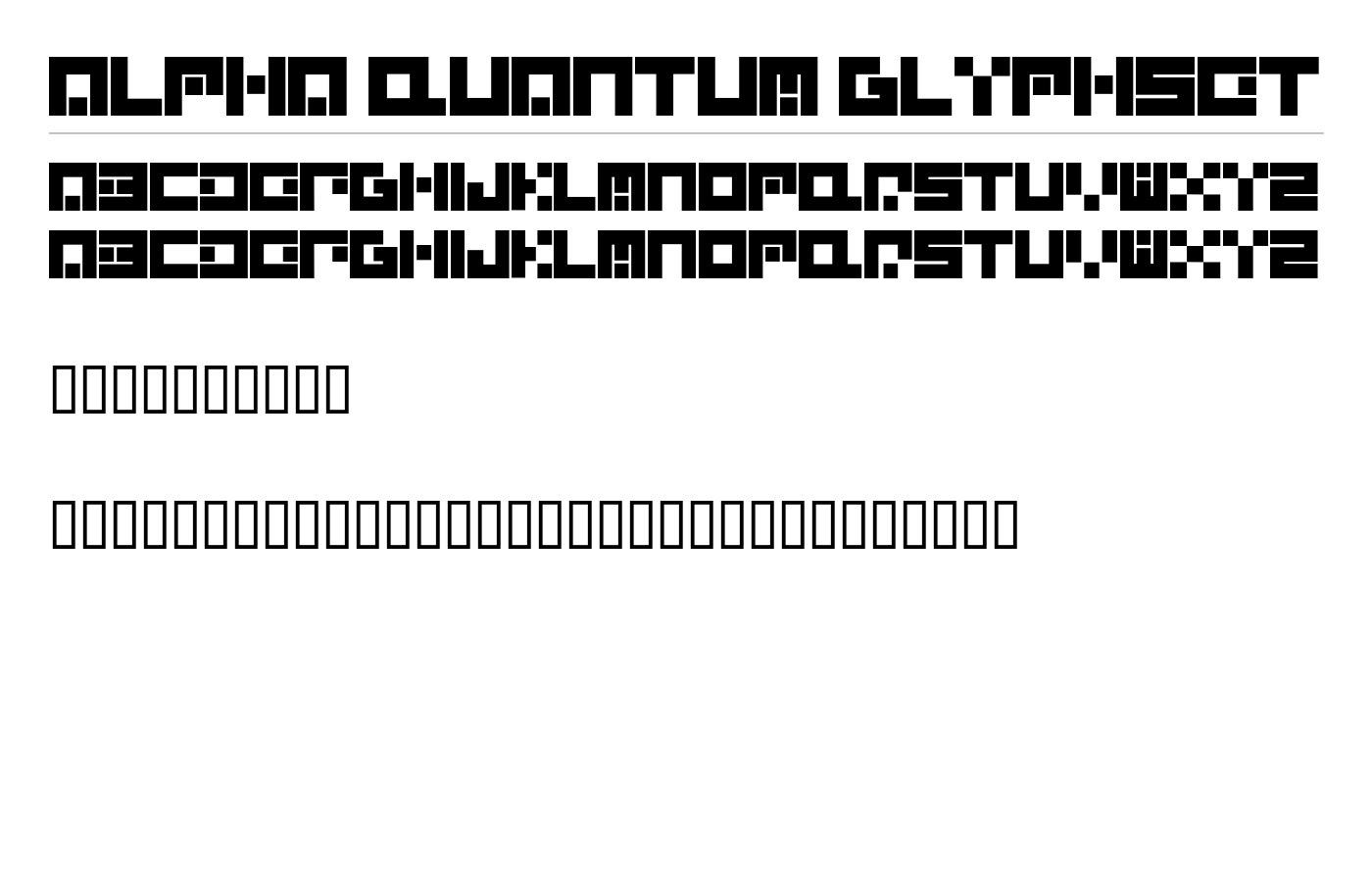
Alpha Quantum Glyphset is a bold, geometric sans serif font characterized by its strong rectangular forms and futuristic, techno vibe. With its uniform stroke weight and tight spacing, it works well for eye-catching headlines, logos, and digital designs that seek a modern, high-tech aesthetic. This font's distinct, modular shapes make it perfect for branding and projects related to technology, gaming, and innovation.
Alpha Quantum Glyphset Font
About Alpha Quantum Glyphset Font
| Font family | Alpha Quantum Glyphset Font |
| Designer | Martin Bengtsson |